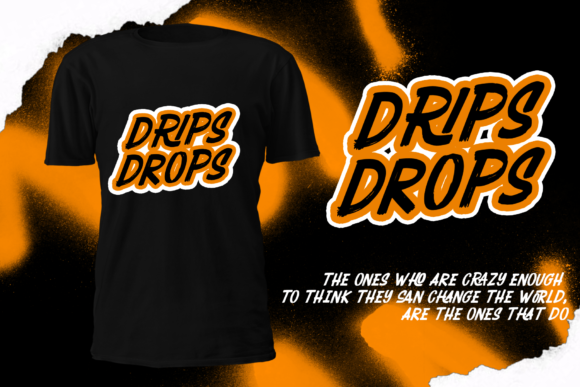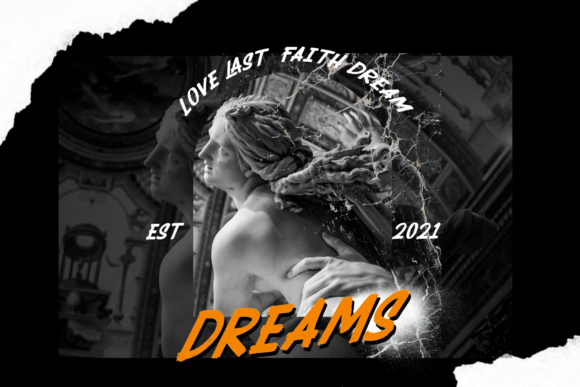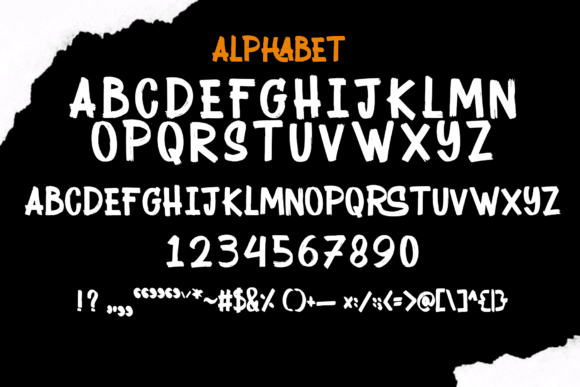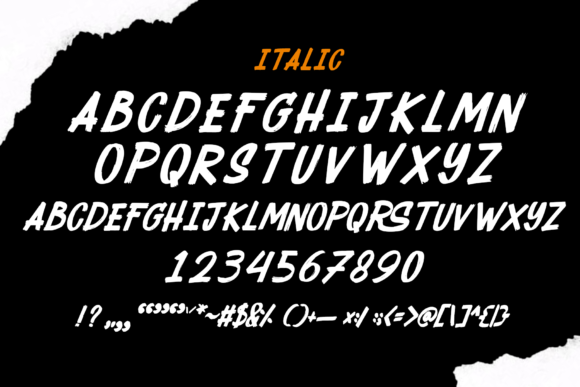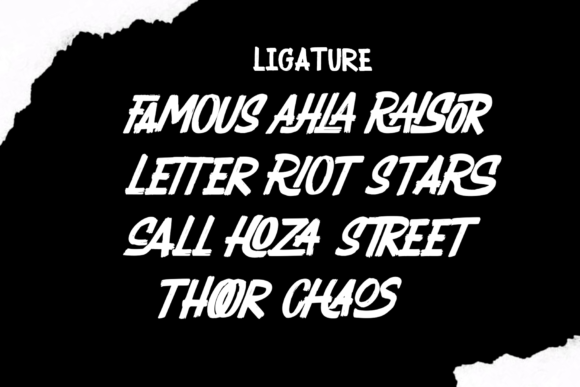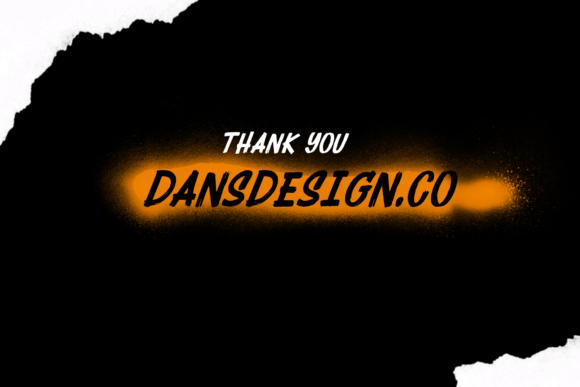
Introduction to Raizor Font
Raizor is a cool, bold and street styled display font.
This original look will appeal to a wide range of crafty ideas, from letterheads and titles, to stationery .
Key Features of Raizor Font